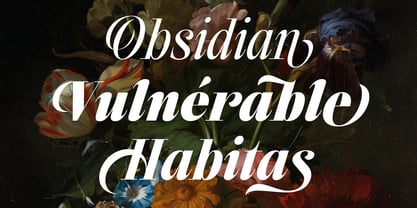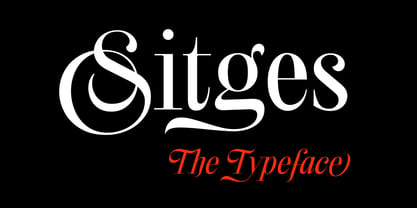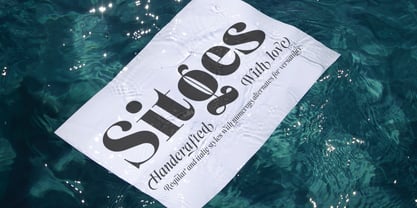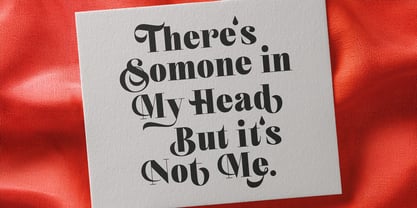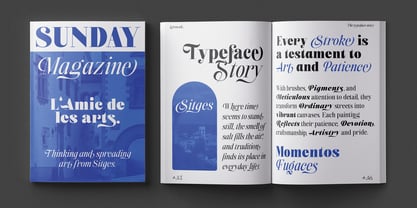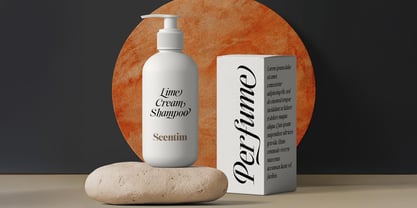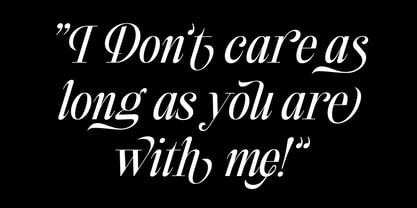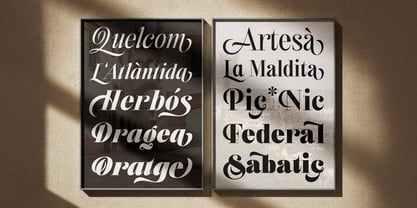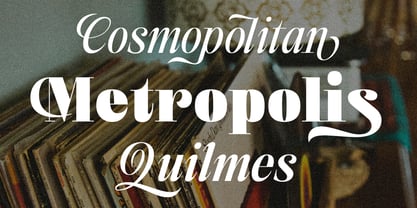
The Sitges Font Family was designed by Alex Camacho and published by Alex Camacho Studio. Sitges contains 10 styles and family package options. More about this family
Sitges typeface is inspired by the timeless lettering of Sitges' iconic street signs, reflecting the artistry and craftsmanship of its master artisans. With subtle, elegant details at the beginnings and endings of letters, it captures the warmth and care of traditional hand-painted signage. Designed with versatility in mind, it offers multiple variations for each letter in both standard and italic styles, allowing designers to create words with character, soul, and a touch of Mediterranean charm.